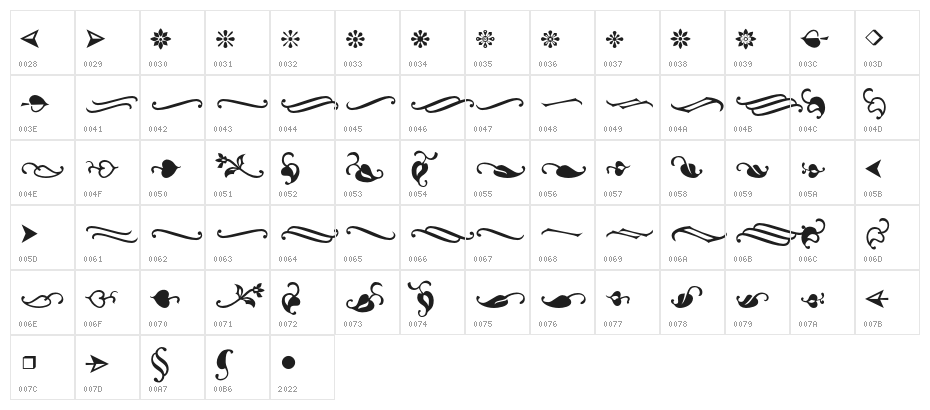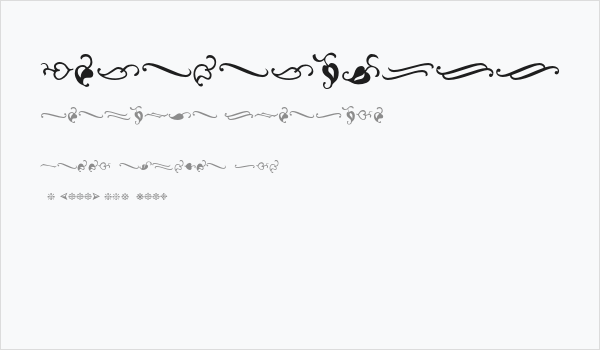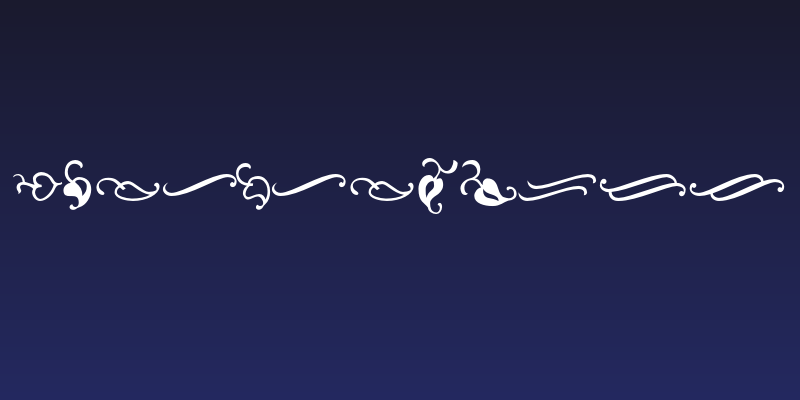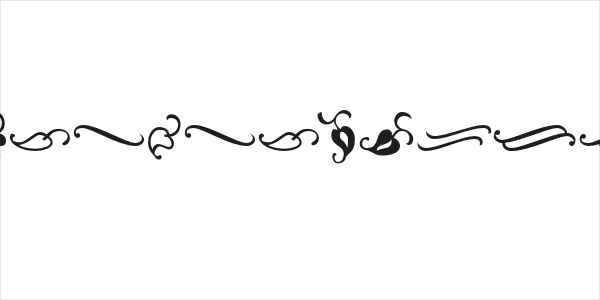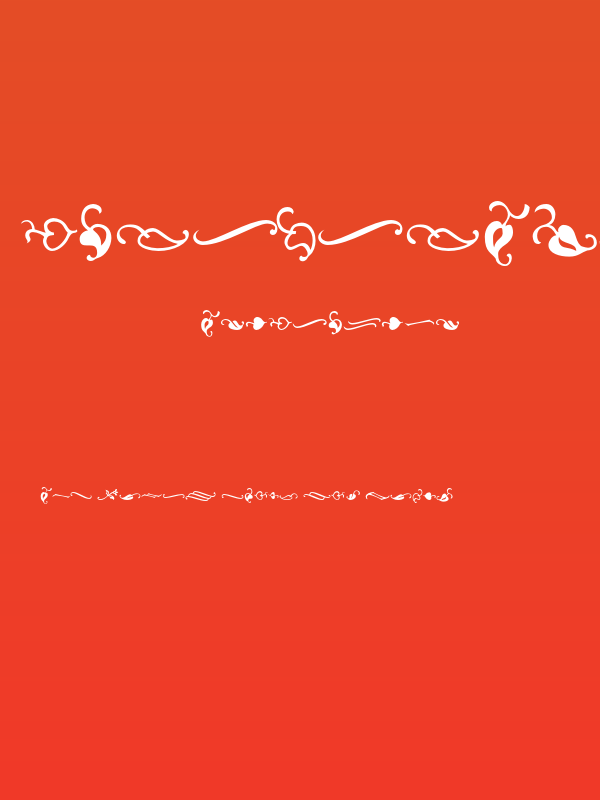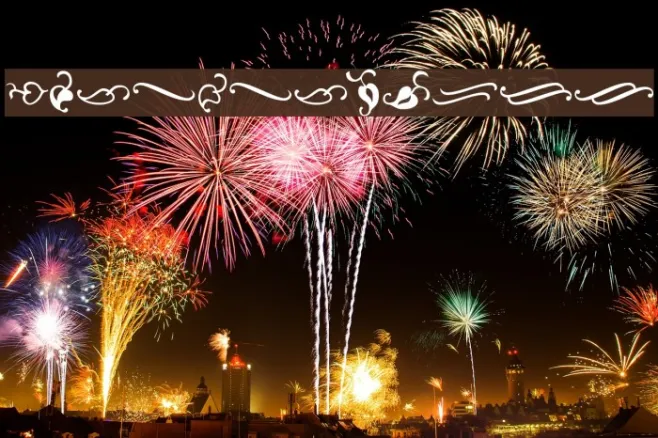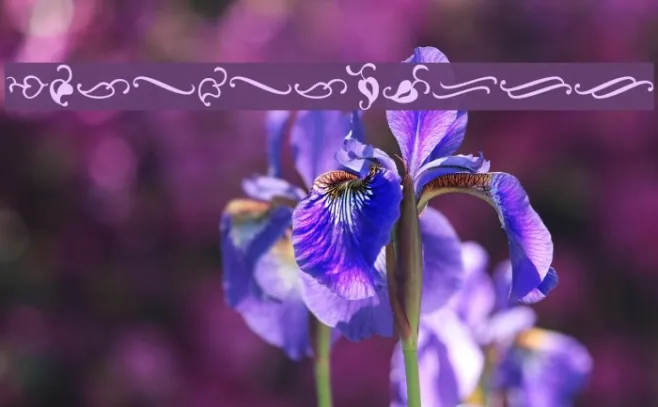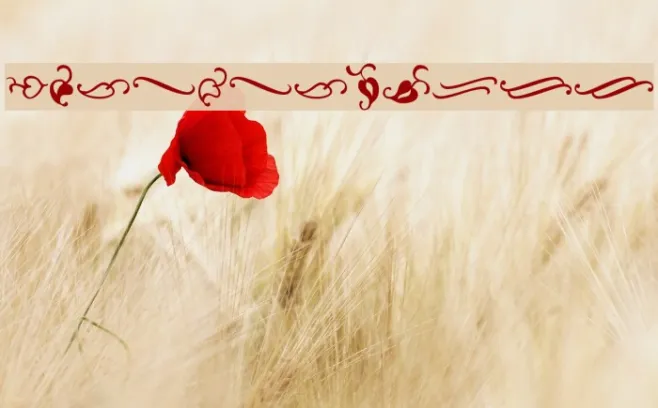
OrnementsADF Font
OrnementsADF Description
This is not a traditional font but rather a collection of decorative ornaments. The designs include intricate swirls, floral motifs, and geometric patterns. These elements are highly stylized and ornate, making them suitable for embellishing designs rather than for text. The ornaments are consistent in their decorative style, featuring a blend of curves and symmetrical shapes that create an elegant and artistic appearance.
| Use Case | Decorative elements |
| Proposed Projects | Ideal for use in decorative borders, invitations, greeting cards, and artistic projects requiring ornamental embellishments. |